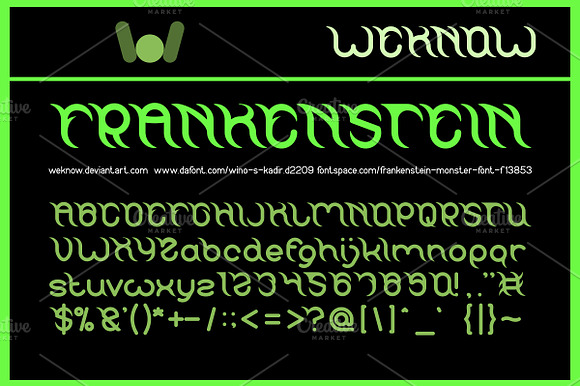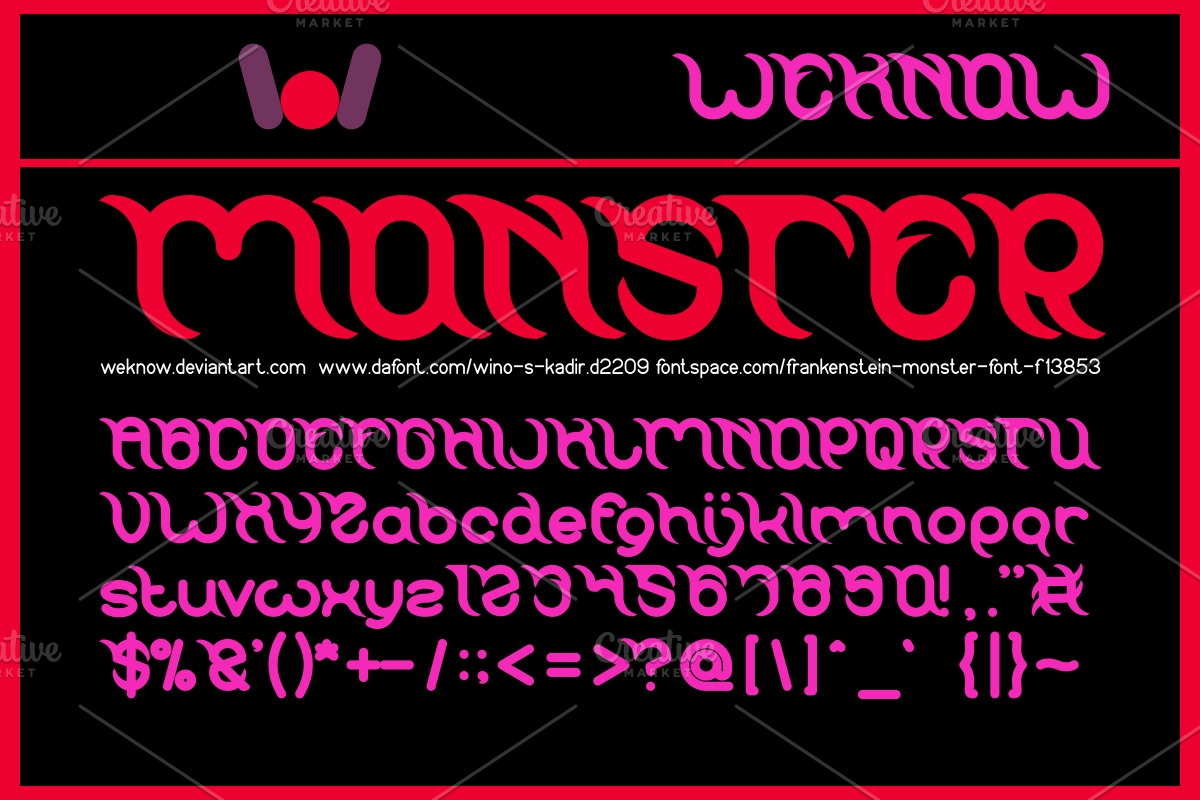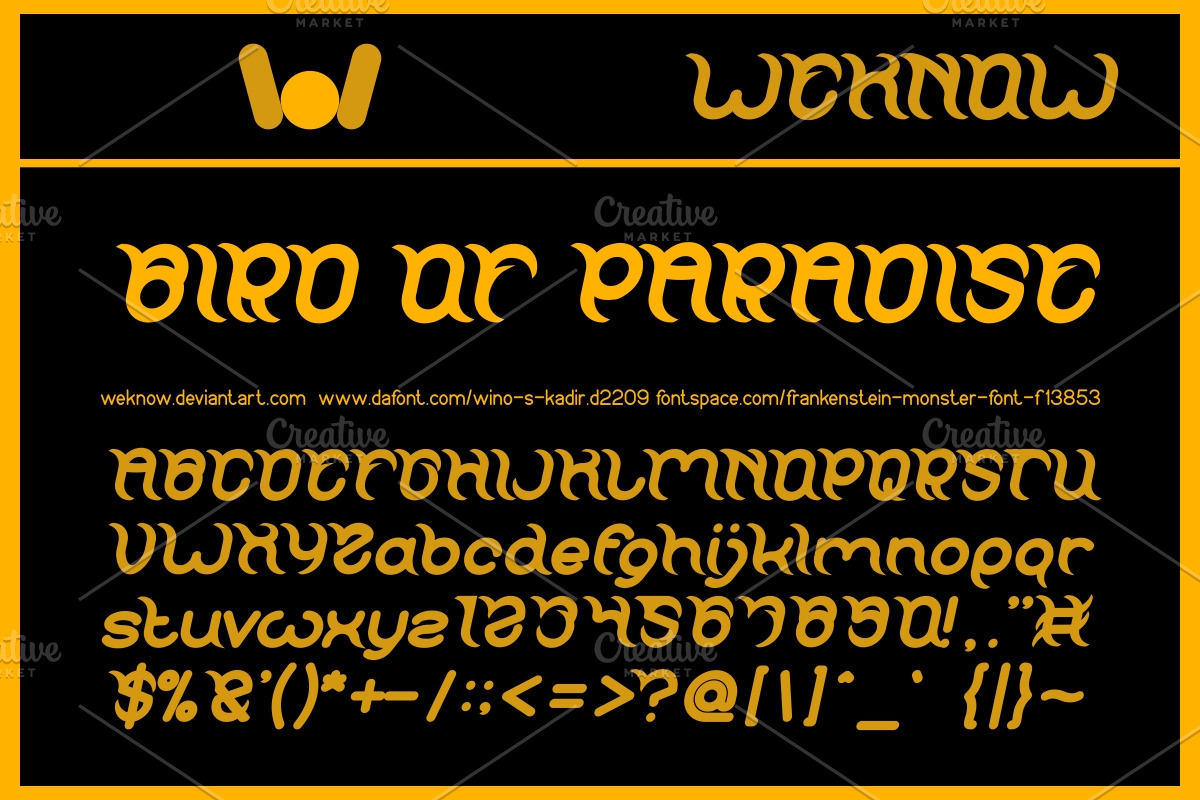
frankenstein monster font
available style: FRANKENSTEIN MONSTER-Hollow-Inverse, Frankenstein Monster-Inverse, FRANKENSTEIN MONSTER-Italic, FRANKENSTEIN MONSTER-Bold, FRANKENSTEIN MONSTER-Bold-Italic, Frankenstein Monster-Hollow
Why frankenstein monster font is worth a look
frankenstein monster font by weknow fits naturally into Branding, posters, packaging, typography.